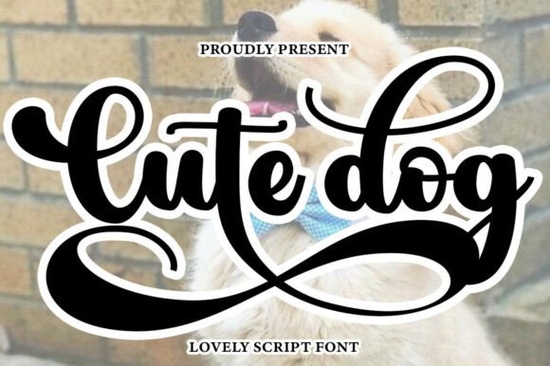
If you're looking for a soft, friendly script font that works well for dog-themed crafts, pet shop branding, or handmade greeting cards, the Cute Dog Font is a thoughtful choice. It’s not overly cutesy or cartoonish instead, it balances gentle curves with clean legibility, making it practical for both digital and print use. Whether you’re designing a custom collar tag, a boutique pet bakery label, or a “Welcome to Our Pack” wall sign, this font adds warmth without sacrificing polish.
What kind of projects does Cute Dog Font work best for?
This font shines in contexts where approachability and charm matter more than bold impact. Think: handmade dog treat packaging, adoption center flyers, personalized pet portrait prints, or small-batch stationery like “Bark & Brew” coffee shop menus. Because its letterforms have subtle variation and a natural rhythm, it reads well at medium sizes ideal for invitations, product tags, and social media graphics aimed at pet lovers.
It’s also a solid pick if you’re building a cohesive brand for a pet-focused small business. Unlike some script fonts that feel too formal or too playful, Cute Dog Font sits comfortably in the middle feminine but not fussy, relaxed but still refined. That makes it easier to pair with simple sans-serifs or clean display fonts for headings and body text.
How does it compare to other popular script fonts on Creative Fabrica?
If you’ve used AnyTimes Font, you’ll notice Cute Dog Font has less contrast between thick and thin strokes so it feels softer and more consistent across letters. Compared to Cutie Slime Duo Font, it avoids bubbly exaggeration, which helps it age better in long-term branding. And while Lasso Lore Font leans rustic and hand-drawn, Cute Dog Font offers smoother flow and tighter spacing great when you need readability at smaller sizes.
For those who love handwriting-style fonts, Samantha Handwriting Font shares a similar warmth, but Cute Dog Font has slightly more structure and fewer dramatic swashes making it easier to edit and scale without losing clarity. All four are useful, but Cute Dog Font stands out when your priority is gentle personality and practical usability.
Is it easy to use for beginners?
That said, it’s worth testing how it renders at different sizes. For example, it holds up nicely at 24–36 pt for printed labels or vinyl decals, but below 14 pt, some fine details (like the delicate entry/exit strokes) may blur slightly on low-res screens or inkjet prints. So if you’re using it for tiny embroidery text or micro-printed QR code labels, consider simplifying the layout or pairing it with a clean sans-serif for supporting info.
Where can you see real examples of this font in action?
You’ll find plenty of user-submitted mockups on the product page including wedding favor tags, dog daycare banners, and custom tote bag designs. One seller used it for a line of “Paw-some Pupcakes” cupcake wrappers, pairing it with a muted sage green and cream palette. Another applied it to laser-cut wooden pet ID tags, adjusting letter spacing slightly for even visual weight.
For inspiration beyond the official previews, check out real-world usage on platforms like Instagram or Etsy searching hashtags like #dogfont or #petdesign often surfaces authentic applications. You can also explore similar styles directly on Creative Fabrica using their search filters for script fonts, handwritten fonts, or pet-themed design assets.
- ✅ Works well for pet-related branding, invitations, and craft projects
- ✅ Clean, readable at medium sizes no heavy swashes to manage
- ⚠️ Less ideal for ultra-small text or high-contrast screen displays
- ⚠️ Not designed for multilingual character sets (e.g., accented European or Asian scripts)